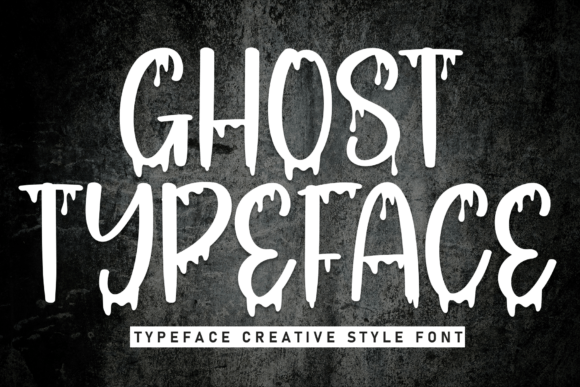
Ghost Typeface Font: The Spookiest Handwritten Font for Your Creepy Designs
The world of typography is vast and diverse, with countless font styles to choose from, each with its unique character and charm. But, if you’re looking for a font that can add a spooky touch to your designs, then the Ghost Typeface Font is an excellent choice. This handwritten font features letters that look like they’re dripping, making it perfect for Halloween designs or anything with a creepy vibe.
What is Ghost Typeface Font?
Ghost Typeface is a spooky, handwritten font with letters that appear to be dripping or melting. Its bold, uneven letters create a haunting feel, making it an ideal choice for designs that require a creepy or eerie atmosphere. The font’s unique design is reminiscent of oozing or melting letters, adding a sense of unease and tension to your text.
Key Features of Ghost Typeface Font
• Spooky and Handwritten: Ghost Typeface has a distinctive handwritten look, with letters that seem to be dripping or melting.
• Bold and Uneven: The font features bold, uneven letters that create a haunting feel.
• Perfect for Halloween: The font’s spooky design makes it an excellent choice for Halloween-themed designs.
• Creepy Vibe: Ghost Typeface is perfect for designs that require a creepy or eerie atmosphere.
Ideas for Using Ghost Typeface Font
Ghost Typeface is a versatile font that can be used in various design projects. Here are some ideas to get you started:
• Halloween-themed designs: Use Ghost Typeface to create spooky posters, flyers, or social media graphics for Halloween.
• Horror movie promotions: The font’s creepy design makes it perfect for promoting horror movies or TV shows.
• Creepy logos: Use Ghost Typeface to create a unique and memorable logo for your business or brand.
• Dark and moody designs: The font’s haunting feel makes it suitable for designs that require a dark and moody atmosphere.
Benefits of Using Ghost Typeface Font
Ghost Typeface offers several benefits, including:
• Unique design: The font’s distinctive design sets it apart from other fonts, making your designs stand out.
• Easy to read: Despite its bold and uneven design, Ghost Typeface is easy to read, even at small sizes.
• Versatile: The font can be used in various design projects, from posters to logos.
• High-quality: Ghost Typeface is a high-quality font, designed to deliver crisp and clear results.
Tips for Using Ghost Typeface Font
Here are some tips for using Ghost Typeface effectively:
• Experiment with colors: Try pairing Ghost Typeface with different colors to create a unique and eye-catching design.
• Play with textures: Add texture to your design by combining Ghost Typeface with different textures or patterns.
• Use it sparingly: While Ghost Typeface is a great font, it can be overwhelming if used excessively. Use it sparingly to create a greater impact.
• Pair it with other fonts: Try pairing Ghost Typeface with other fonts to create a unique and interesting contrast.
Ghost Typeface is a unique and creative font that can add a spooky touch to your designs. Its bold, uneven letters create a haunting feel, making it perfect for Halloween designs or anything with a creepy vibe. With its versatility, ease of use, and high-quality design, Ghost Typeface is an excellent choice for designers looking to create eye-catching and memorable designs.